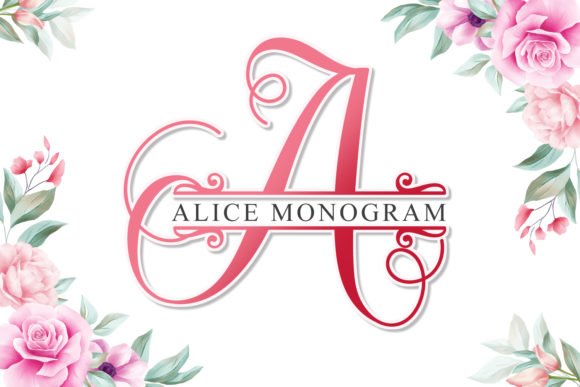
A Touch of Whimsy: The Alice Monogram Font
Do you remember the feeling of excitement and joy when you first started designing your wedding stationery or creating a special card for a loved one? For many of us, it’s a moment when creativity flows freely and anything seems possible. This is exactly the feeling that the Alice Monogram Font embodies – a sweet, decorative font that adds a touch of whimsy to any project.
The Alice Monogram Font is designed to help you create stunning invitations, beautiful stationery art, eye-catching social media posts, and adorable greeting cards. With its authentic feel and PUA encoded features, this font makes it easy to access all of its glyphs and swashes. For designers, the Alice Monogram Font is a valuable tool to add a personal touch to their work and make it truly special.
Alice Monogram Font Key Features
- Font Family: Alice Monogram Font is a beautiful script font with a unique, elegant design.
- Unique Characteristics: Alice Monogram Font features swashes, flourishes, and ligatures, adding a touch of sophistication and elegance to your designs.
- Language Support: The font supports a wide range of languages, including Latin, Cyrillic, and Greek scripts.
Alice Monogram Font Review
I’ve had the chance to work with the Alice Monogram Font and overall, it’s a beautiful addition to any design project. ✨ Here are a few things that I think work well:
- Unique and elegant design – The Alice Monogram Font has a classic, sophisticated feel that’s perfect for wedding invitations, formal events, or any design that needs a touch of luxury.
- High-quality glyphs – The font includes a wide range of glyphs, including uppercase and lowercase letters, numbers, and punctuation, which makes it easy to use in a variety of contexts.
- Great for customization – The font is highly customizable, with options for different colors, sizes, and styles, which makes it easy to tailor to your specific design needs.
Of course, like any font, the Alice Monogram Font has its limitations ⚠️:
- Limited language support – The font only supports English and a few other languages, which may limit its use for multilingual projects.
- May not be suitable for informal designs – The font’s elegant design may not be the best fit for more casual or playful designs.
Overall, I think the Alice Monogram Font is a great choice for designers looking for a high-quality, elegant font. While it may have some limitations, its unique design and customization options make it a versatile and valuable addition to any design library.
Use the Alice Monogram Font to add a touch of elegance and sophistication to your designs. Pair it with bold fonts for contrast or use it as a standalone font for a more subtle look.
The Alice Monogram Font is perfect for:
- Personalized gifts and party decorations
Q: Is the Alice Monogram Font available in different weights and styles?
Yes, the Alice Monogram Font family includes various weights and styles, including Regular, Bold, Italic, and Bold Italic. You can use these different weights and styles to create visually appealing typography and add depth to your designs.